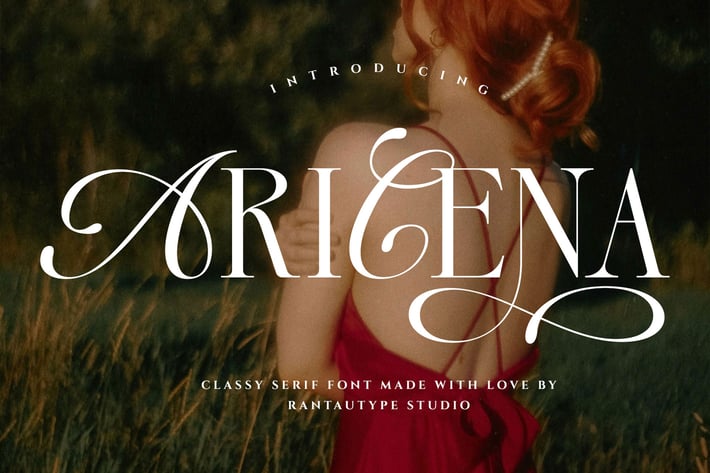
Aricena Elegant Serif Font
Aricena is modern font with blend script and serif font that embraces elegance. Aricena bring with beautiful touch of charm and femininity make your design stand out! We keep this font look elegant, luxury, feminity and easy to use.
Aricena is a beautiful choice for any creative endeavor, creating elegant, modern, chic, lifestyle design such as logotype, title, cover, branding, invitations, wedding designs, display and magazine, social media posts, advertisements, printed quotes, product packaging, corporate brand, product designs, labels, photography, watermarks, special events and any other project with elegant touch.
Standart Glyphs
Alternate and Ligature